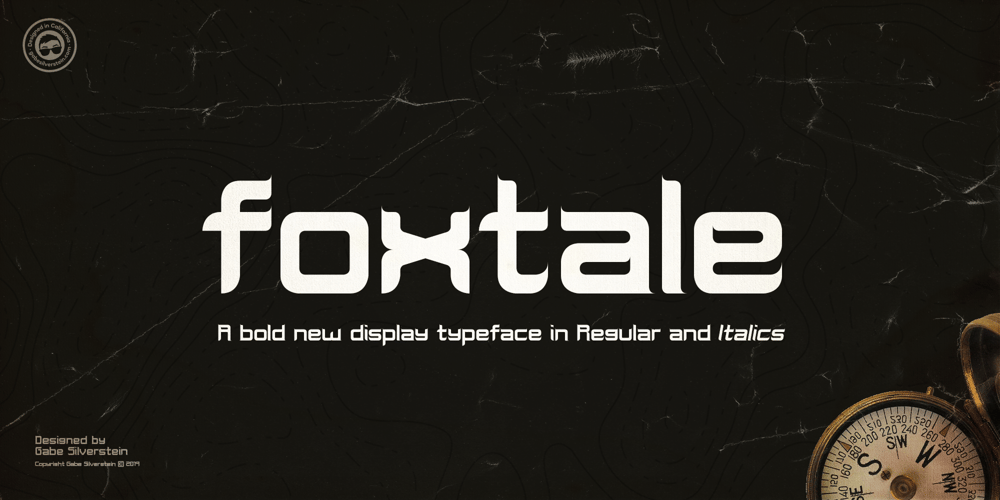
Foxtale Font Family was designed by Gabe Silverstein and published by Gabe Silverstein. Foxtale contains 2 styles and family package options. Foxtale was inspired by an ancient Hebraic scriptural style, boasting flared seraphs, classic structures and dramatic shapes.Foxtale is perfectly suited for impactful word marks or subtext.A fully featured typeface with upper and lowercase, Latin characters, numbers, symbols, currency and alternatives – Foxtale will surely excite your next design adventure!